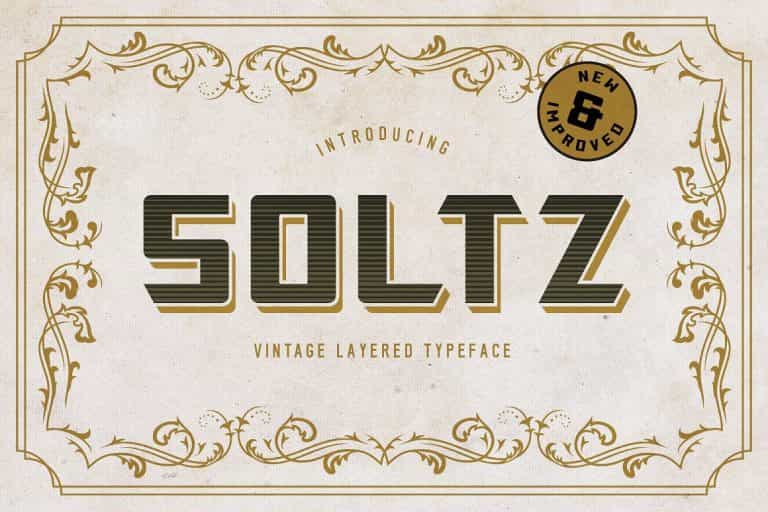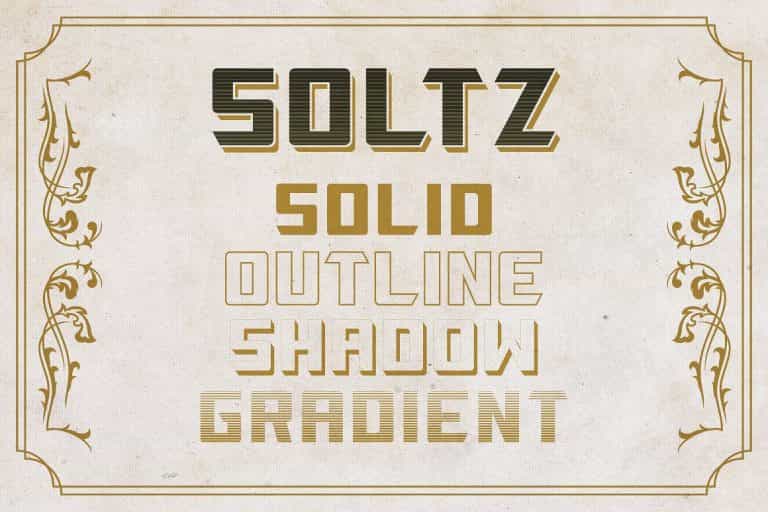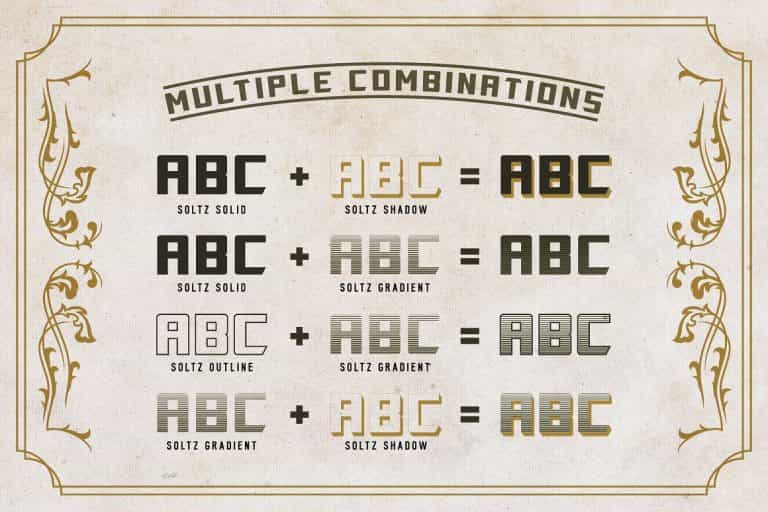
Introducing Soltz Font. Von Type Co designed it; this is a premium font, that was sold on creativemarket, but now it can be downloaded for free. Soltz Vintage Layered Typeface is a layered typeface which was created based on the vintage hand painted sign advertisements found in Atlantic City, NJ. With the 4 stackable styles that create a lot of different typography effects by themselves and easily combine to make more.